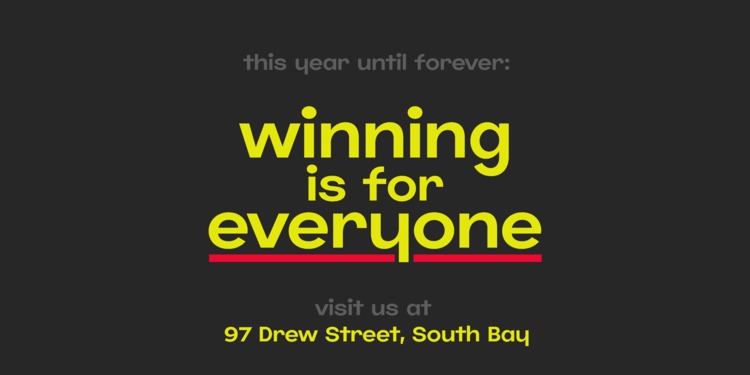
Jumper Font
Jumper Sans Serif Font
This is an geometric, minimalism and elegant sans serif typeface. Drawn and created by Mans Greback between 2019 and 2021, Jumper is a speedy, naive type for logotypes, headlines and body text. The geometric components merge seamlessly with the organic shapes, resulting in a professional but genuine lettering.
With a sport character reminiscent of typography in famous brands such as Nike and Adidas, this type is active, happy and has great velocity.